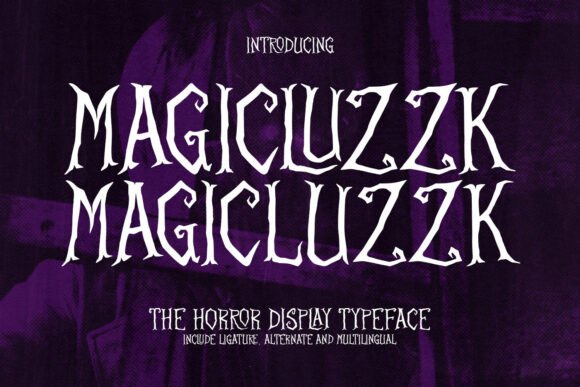
Magicluzzk: The Gothic Font for Dark Creativity
If you're looking to bring an air of mystery, horror, or vintage flair to your designs, Magicluzzk is a font that can help you achieve just that. This haunting display typeface draws inspiration from classic monster movies, Halloween traditions, and the underground music scene, making it a go-to choice for creators who want their work to scream with atmosphere.
What Makes Magicluzzk Unique?
Magicluzzk isn't just another decorative font. Its jagged edges, elongated strokes, and eerie character shapes evoke the essence of Gothic horror. Whether you're designing a band logo, crafting a Halloween poster, or creating a title for a dark novel, this font adds a layer of authenticity and visual impact that few others can match.
The design of Magicluzzk is rooted in the aesthetics of old-school horror films and punk rock flyers. It blends elements of Victorian typography with modern digital precision, giving users a tool that's both nostalgic and fresh. Each letter feels like it was carved from shadow, making it perfect for projects that need a strong emotional punch.
Why Designers and Creators Love Magicluzzk
- Band Logos & Album Art: For musicians in metal, hardcore, punk, or rock genres, Magicluzzk offers a bold way to represent their sound visually. It’s often used for album titles and band names where a dramatic, spine-chilling appearance is key.
- Halloween Promotions: Marketers and event planners use Magicluzzk to create invitations, posters, and advertisements that capture the spooky spirit of the season. Its aesthetic makes it ideal for haunted house promotions or costume contest flyers.
- Book and Novel Titles: Authors and publishers working on horror, fantasy, or gothic literature often choose Magicluzzk to make their titles stand out. The font conveys intensity and intrigue, which are essential for grabbing reader attention.
- Gaming Graphics: In the realm of horror games, environment text and title screens benefit greatly from Magicluzzk. It enhances immersion by fitting seamlessly into dark, atmospheric visuals.
How Different Audiences Can Use Magicluzzk
While Magicluzzk has a clear thematic appeal, its usefulness varies depending on who is using it and what they're aiming to accomplish. Let’s explore how different professionals might incorporate it into their workflows.
Beginners and Hobbyists
For newcomers to graphic design or content creation, Magicluzzk serves as an accessible entry point into Gothic-style typography. Its bold characters don’t require advanced typesetting skills, yet they instantly transform simple designs into something more compelling. A beginner blogger writing about horror films could use it to highlight post titles or pull quotes without needing to adjust spacing or kerning too much.
Experienced Designers and Professionals
Professionals may appreciate Magicluzzk for its versatility in high-impact visuals. When paired with the right imagery and color schemes, it becomes a powerful storytelling element. Graphic designers working on a black metal album cover might combine it with blood splatter textures or candlelit backgrounds to enhance the overall vibe. The font’s unique style allows for creative layering and effects, such as drop shadows or ink bleed treatments.
Entrepreneurs and Small Business Owners
Entrepreneurs running niche businesses—like a Halloween-themed café or a record shop specializing in vinyl from underground bands—can leverage Magicluzzk to build brand identity. Using it consistently across menus, signage, and promotional materials helps establish a cohesive look that resonates with their target audience. It’s not just a font; it’s part of the experience.
Marketers and Event Planners
Marketing teams and event organizers seeking to create buzz around seasonal events will find Magicluzzk invaluable. Its ability to convey fear, excitement, and nostalgia all at once makes it perfect for themed campaigns. For example, a local film festival showcasing horror classics could use it in their program booklet to set the tone before the first screening even begins.
Authors and Educators
Writers of horror fiction or poetry can use Magicluzzk to add visual weight to book covers or chapter headings. It helps set the mood without overpowering the content. Educators teaching typography, design history, or creative writing might introduce the font as an example of how typefaces influence perception and emotion in media.
Choosing Magicluzzk for Your Project
Before deciding to use Magicluzzk, consider your project’s goals and the message you want to convey. Here are some factors to weigh when choosing whether this font fits your needs:
1. Purpose and Context
Ask yourself: Does my project align with the themes of horror, music, or Halloween? If so, Magicluzzk could be the perfect fit. It shines brightest in contexts where a dramatic, atmospheric look is desired. However, it may not be suitable for formal documents or minimalist branding efforts.
2. Skill Level and Resources
If you’re new to design tools like Adobe Photoshop or Illustrator, Magicluzzk can still be used effectively. Its clean, bold structure works well with basic editing techniques. More experienced users might push the envelope further by applying filters or blending modes to make the text pop against dark or textured backgrounds.
3. Commercial vs. Personal Use
Ensure that the version of Magicluzzk you're using supports your intended purpose. Some fonts have restrictions on commercial applications, while others offer full licensing for logos, merchandise, and web use. Always check the terms provided by the font vendor before finalizing your project.
4. Compatibility and Readability
Though designed for maximum visual impact, Magicluzzk should be evaluated for readability in specific contexts. It works best in large sizes or short phrases rather than long blocks of text. If you plan to use it in body copy or small print, test it carefully to avoid legibility issues.
Practical Examples Across Industries
To give you a clearer idea of how Magicluzzk can be applied, here are some real-world scenarios:
Music Industry
A metal band named "The Hollow Choir" is launching a new EP titled *Whispers in the Catacombs*. They use Magicluzzk for the title and band name on the cover art. The font’s sharp, jagged style complements the EP’s theme of ancient curses and urban legends, helping to attract fans of dark, atmospheric music.
Event Marketing
An event planner is organizing a Halloween party called “Midnight Masquerade.” She uses Magicluzzk in the promotional flyer to craft the event name and tagline. The font’s mysterious aura sets the right tone and entices attendees to imagine the spooky, immersive experience awaiting them.
Book Publishing
A self-published author is releasing a collection of ghost stories. He chooses Magicluzzk for the front cover and each chapter heading. The font adds a sense of foreboding and elegance, drawing readers in with a visual promise of thrilling tales ahead.
Video Game Development
A game designer is working on a survival horror title set in a decaying Victorian mansion. Magicluzzk is used for the main title and environmental text within the game. The font deepens the narrative by reinforcing the setting’s gothic architecture and ominous atmosphere.
Is Magicluzzk Right for You?
Ultimately, Magicluzzk is best suited for those who want to infuse their work with a touch of darkness, drama, or vintage charm. If your goal is to create something memorable and evocative, especially in the realms of music, literature, or seasonal events, this font could be exactly what you're looking for.
However, if you're working on a professional document, a child-friendly product, or anything requiring subtle elegance, Magicluzzk may not be the best option. Consider your audience and the context in which the font will appear to ensure it enhances rather than distracts from your message.
Final Thoughts on Typography and Emotional Impact
Fonts do more than present words—they shape emotions and expectations. Magicluzzk excels in this area by leveraging the visual language of horror and rebellion. Whether you're a designer, marketer, writer, or hobbyist, it’s worth exploring how this font can elevate your next project.